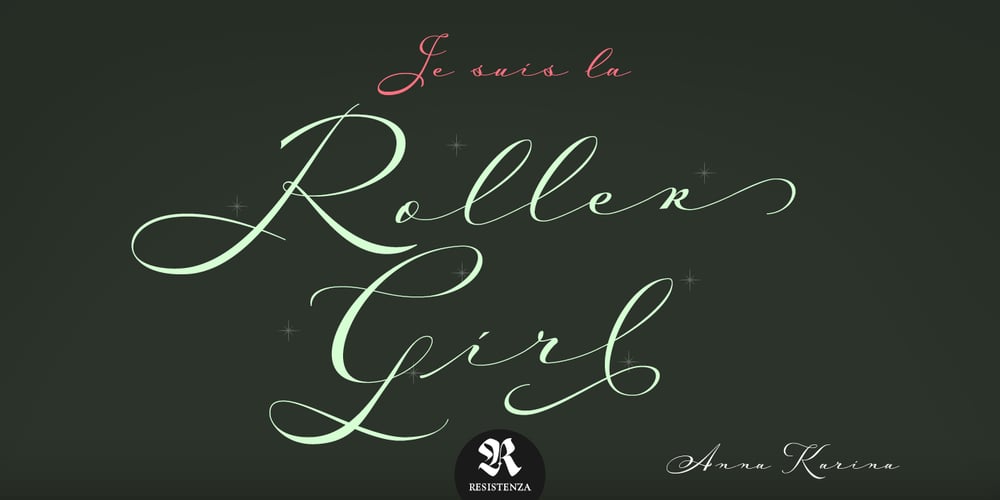
Mina Chic Font Family was designed by published by Resistenza. Mina Chic contains 2 styles and family package options. Mina Chic is fresh, elegant and sexy. She was raised by the french riviera sun, loves watching Nouvelle Vague films and adores french pop divas from the 60´s. She wants to be a star! Mina Chicis a new version of one of our most popular scripts,Mina. We added some expansion on the strokes reminding of a pointed nib pen writing and kept the long connections and smooth swashes to preserve the elegance and simplicity of that classic style. This typeface contains 515 glyphs, swashes, ligatures, alternates, final forms and initial forms and offers a wide range of flexibility with its many Opentype features! Mina Chic Extra has an extra thicker strokes who gives more weight to Mina.